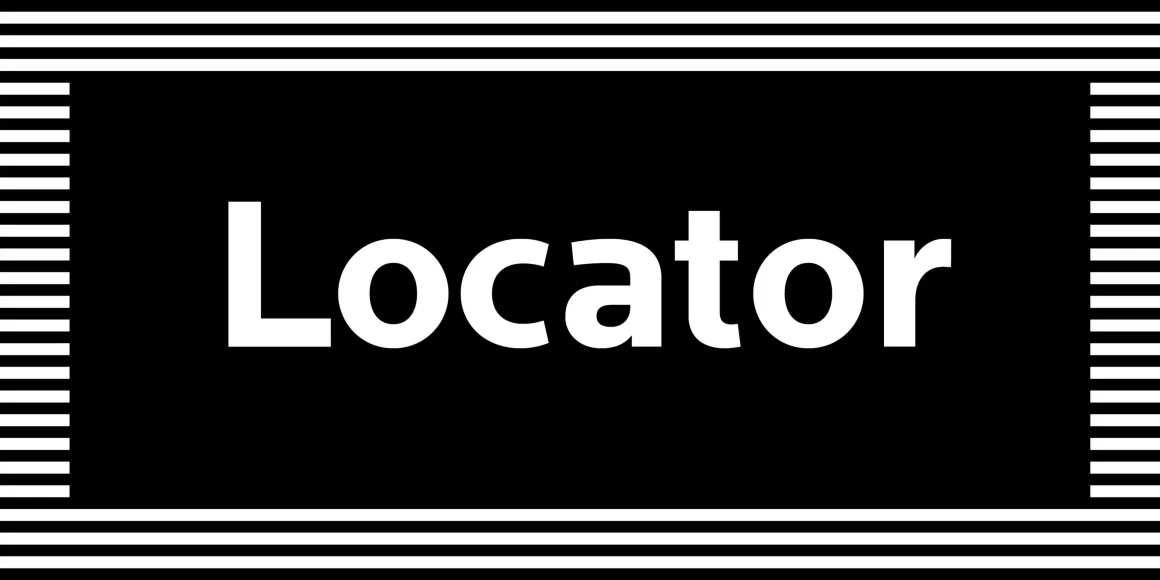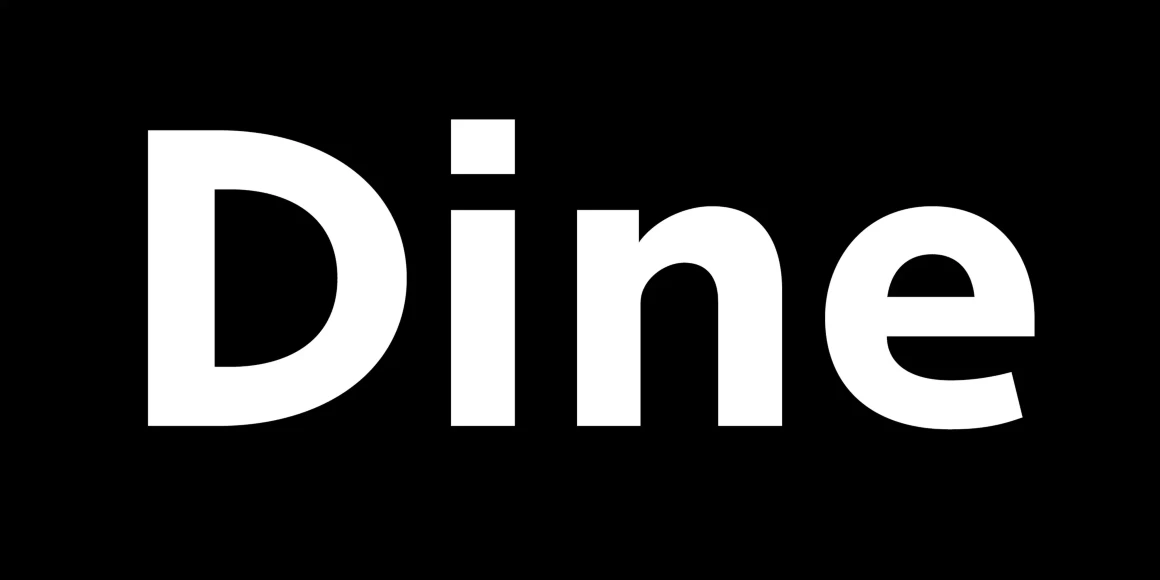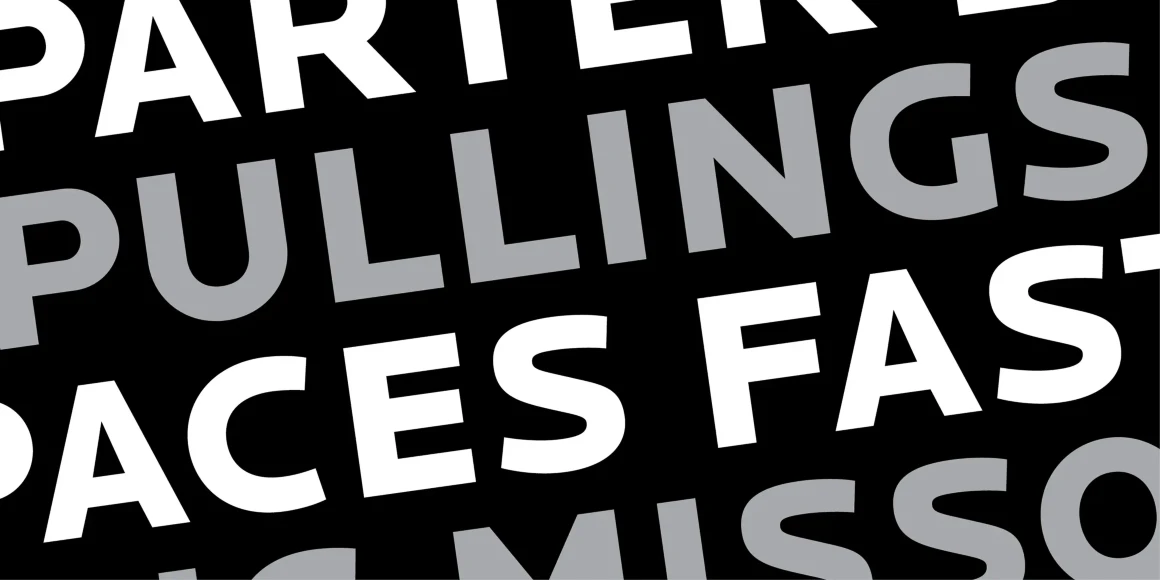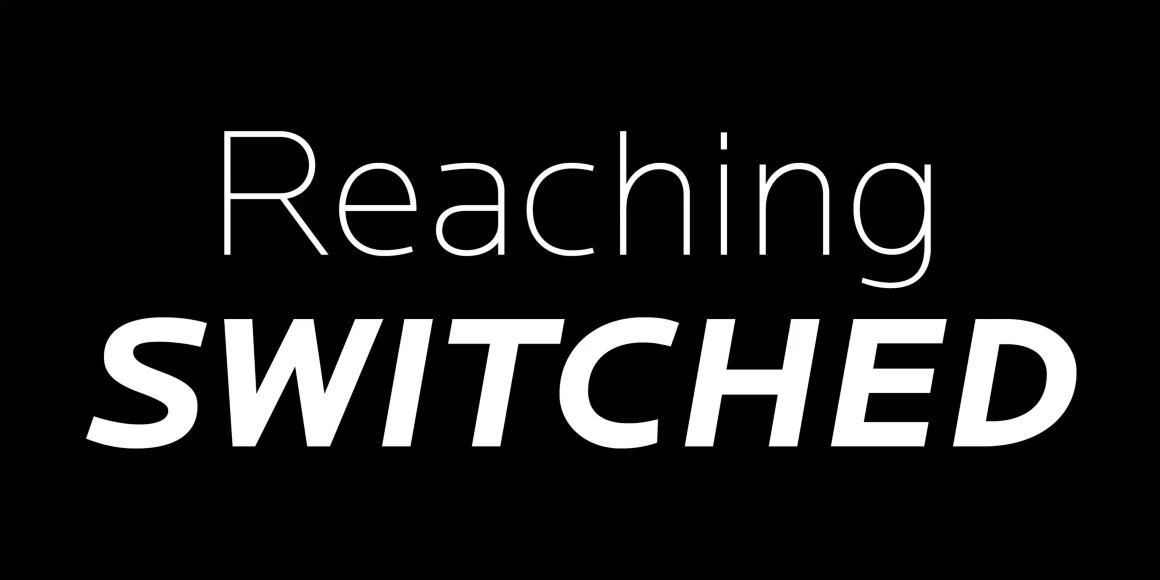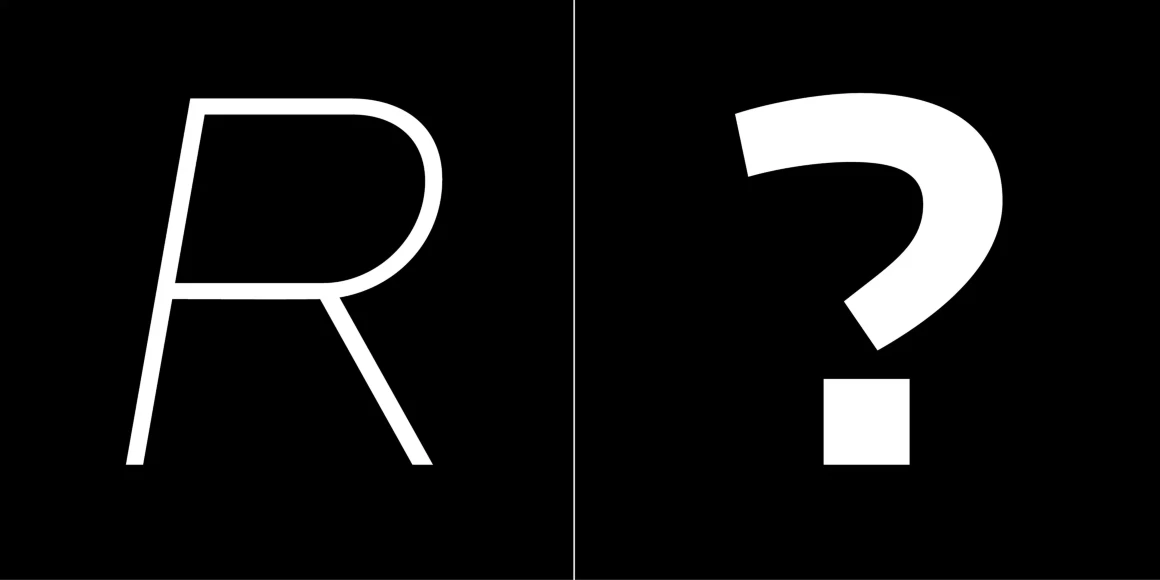
Locator
Locator is a sans serif family designed for both text and display. Originally started as sketches for the Typeface: Twin Cities’ competition, it has a range of six weights with italics that are marked by a horizontal emphasis, limited detail, and a refined presence. Special attention was given to the capitals for display and titling work and extending that range even further is a caps-only companion typeface, Locator Display. The stroke weight and cap-height of each match for easy pairing.
Locator Display picks up where Locator left off – a family whose name tells it all: these fonts are for large sizes. Covering stylistic ground that Locator could not, these fonts function on their own as contemporary display fonts or as rich headline companions to the standard Locator. The core set of structural DNA is shared between the two families, as well as the stroke weight and cap-height for easy pairing.